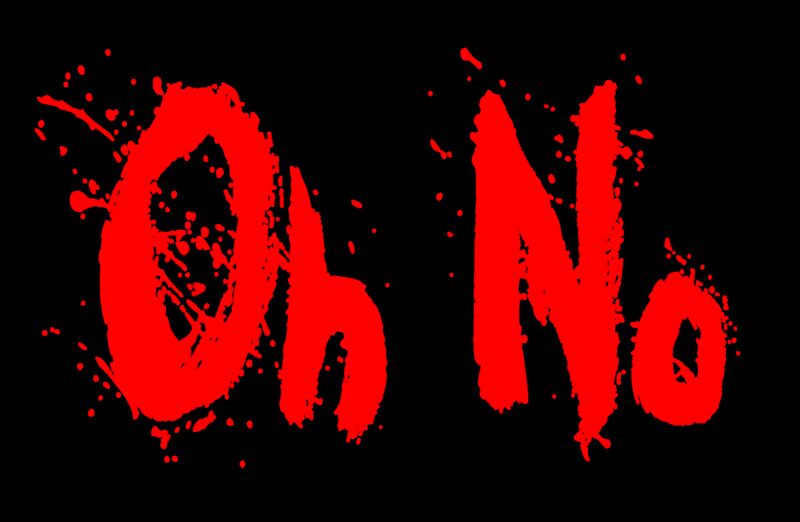
Oh No
"Oh No" is a striking display font that exudes a chilling, ominous aesthetic. Crafted by the talented designer JSH Creates, this font commands attention with its bold, jagged strokes and haunting, almost hand-drawn appearance. The irregular, tattered edges and dripping, ink-like quality evoke a sense of unease, making it an ideal choice for horror-themed designs, horror movie posters, or any project seeking to convey a dark, unsettling tone.
This font's versatility extends beyond the macabre, as its distinct character could also lend itself well to grunge-inspired branding, punk rock album covers, or other bold, unconventional design applications.